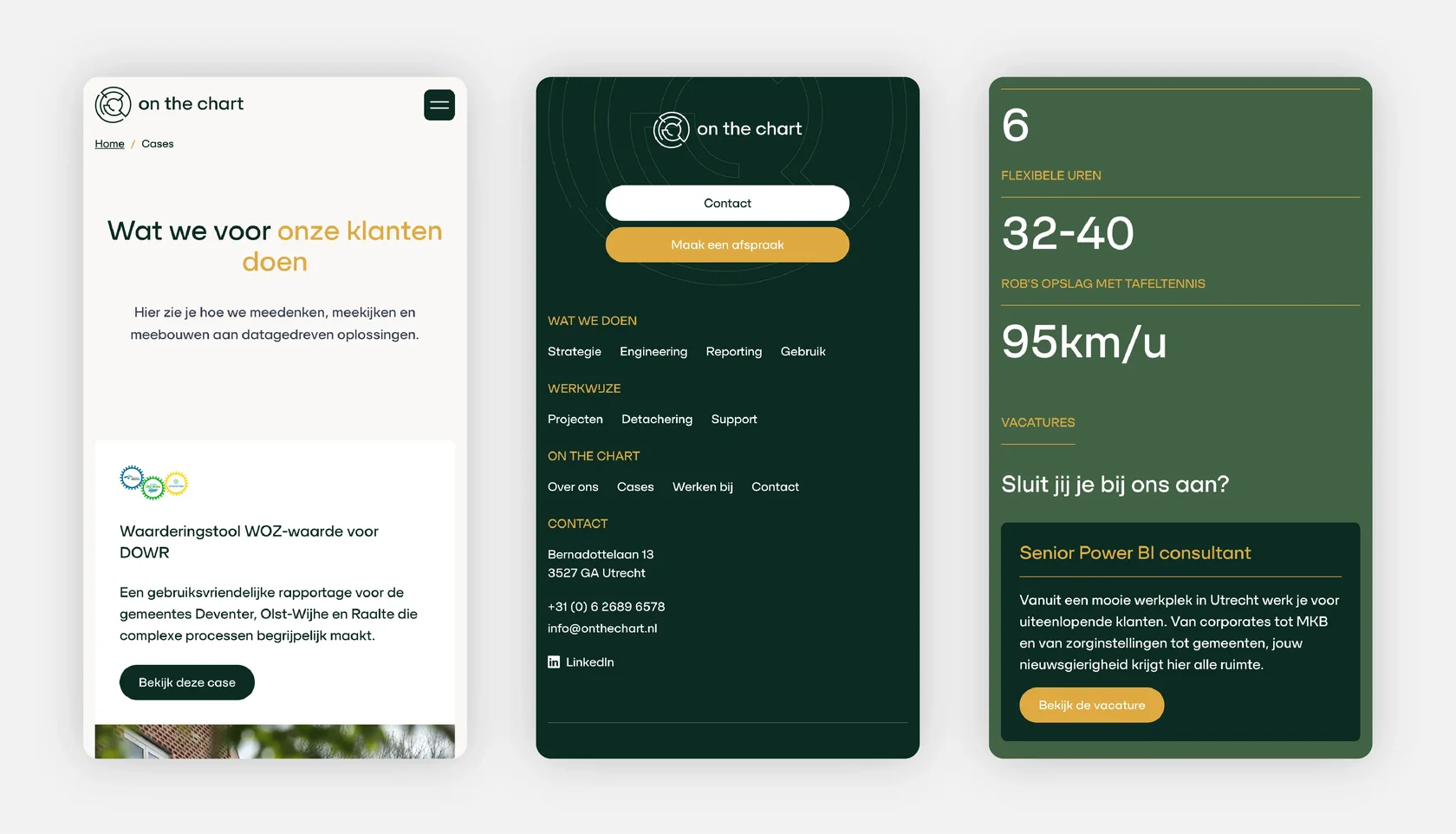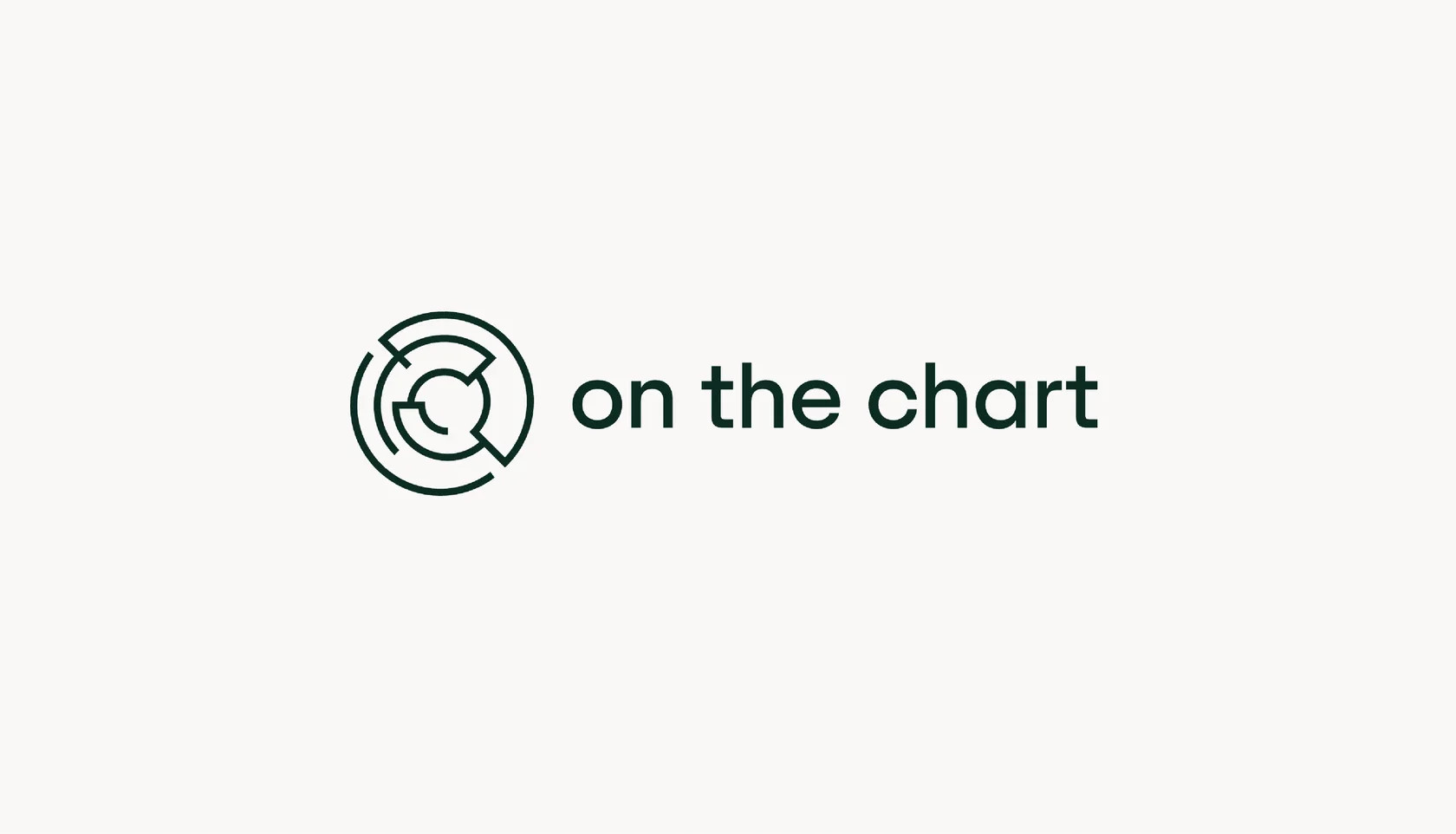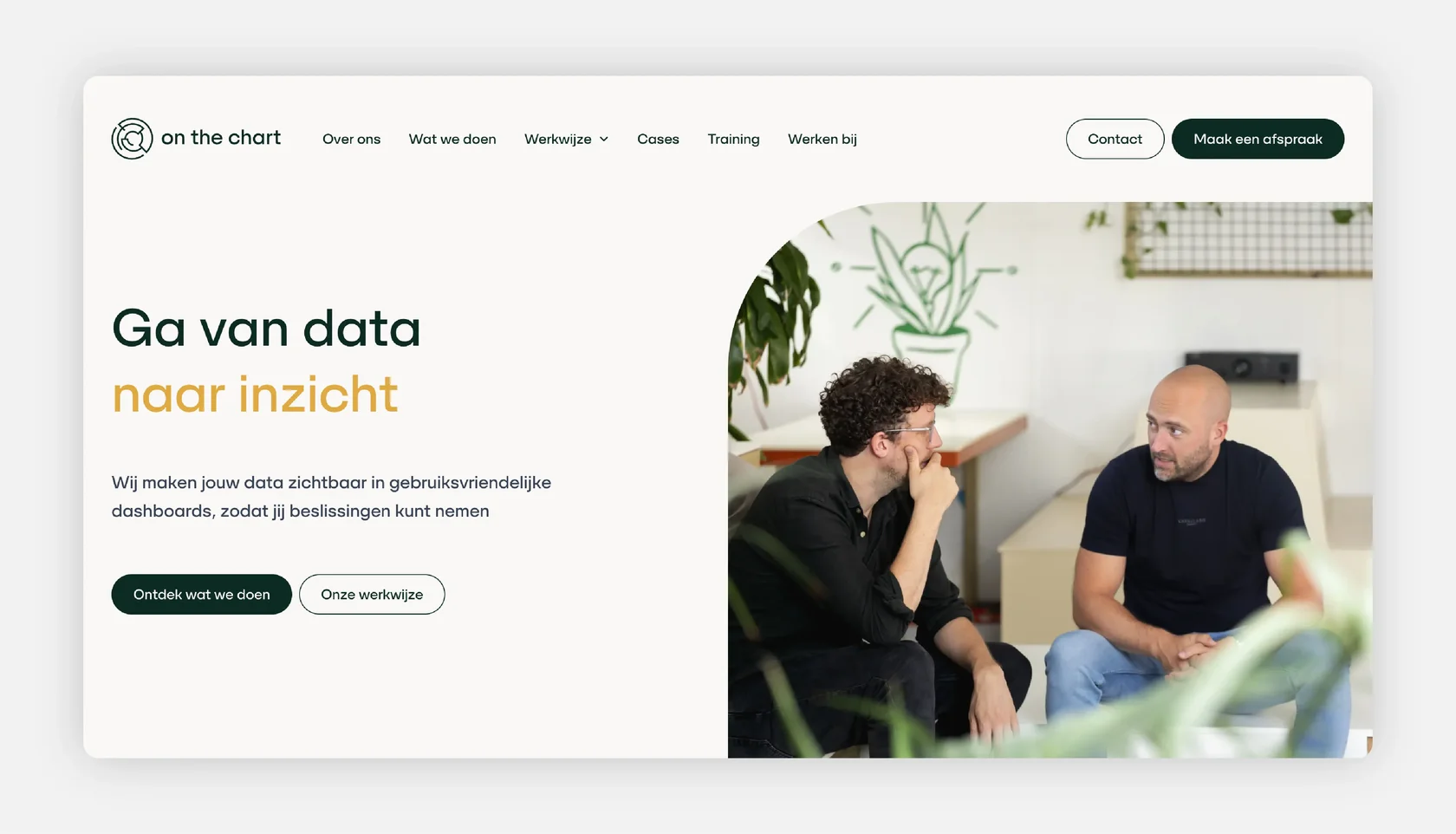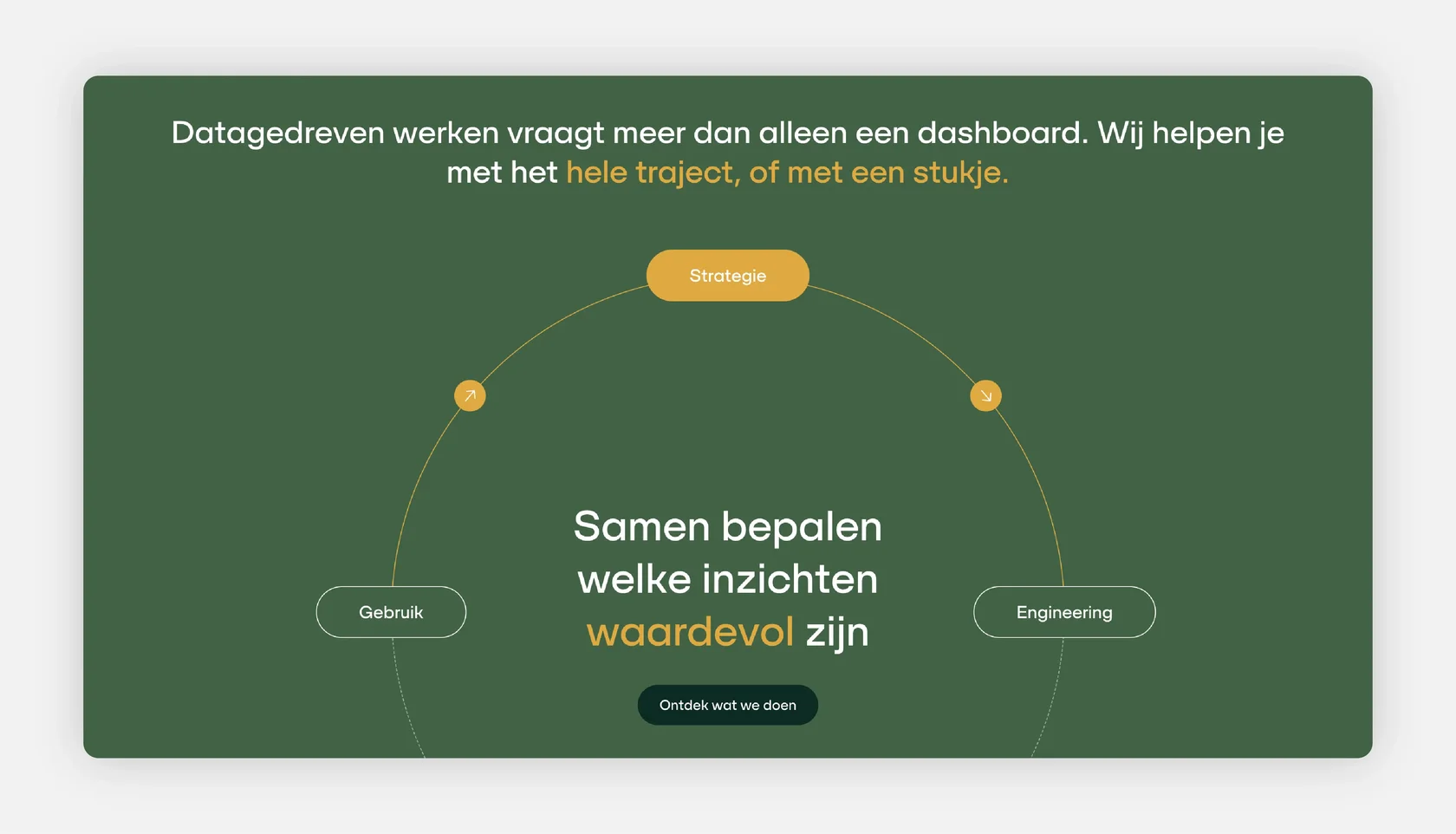
On The Chart — Turning Data Into Actionable Insight
Font: SFT Schrifted Sans (Medium).
Use case: Website design, logo.
About the Project:
On The Chart is a Netherlands-based data consultancy helping organisations transform raw data into meaningful insight. Their website outlines how they guide clients from analysis to implementation—through workshops, dashboards, and long-term support. The visual language pairs approachable illustrations with practical messaging to communicate expertise without overwhelming the user.
Why SFT Schrifted Sans?
SFT Schrifted Sans is used throughout the site for headlines, body copy, UI elements, and callouts, supporting a straightforward and helpful tone. The typeface’s clear forms contribute to the site’s focus on clarity, making complex topics feel understandable and actionable.